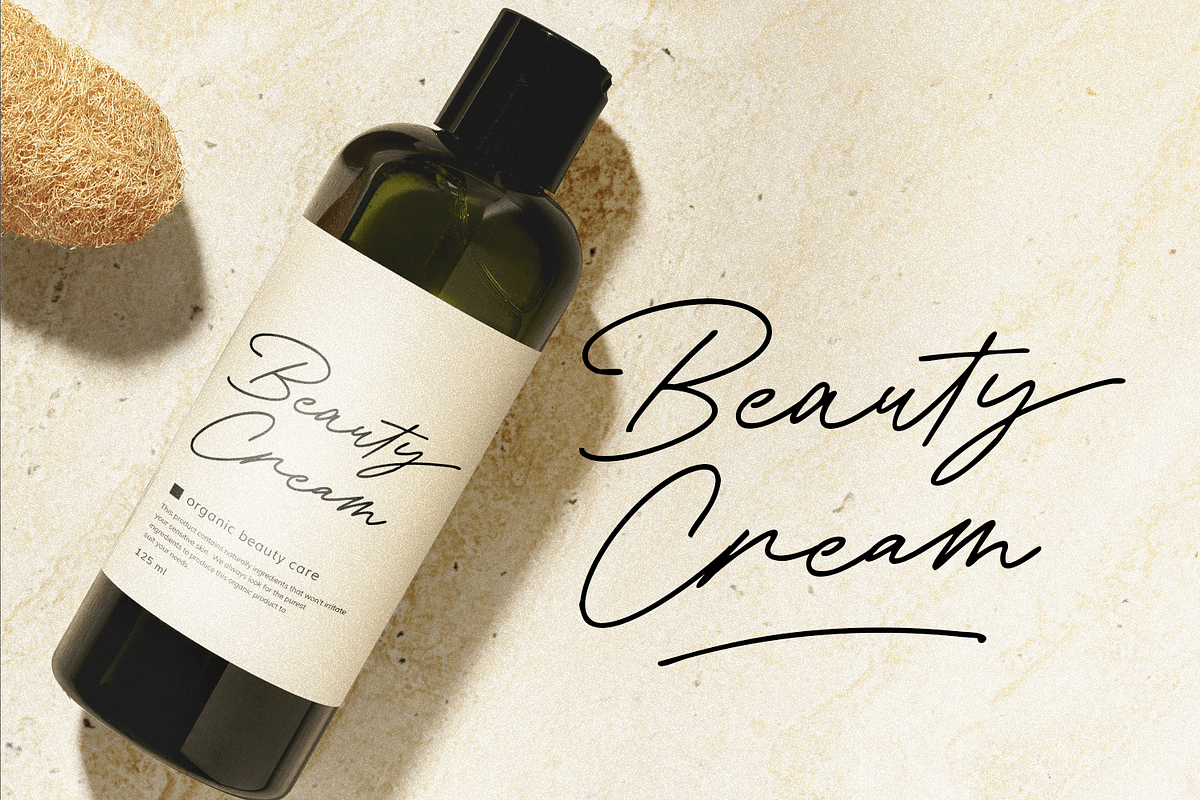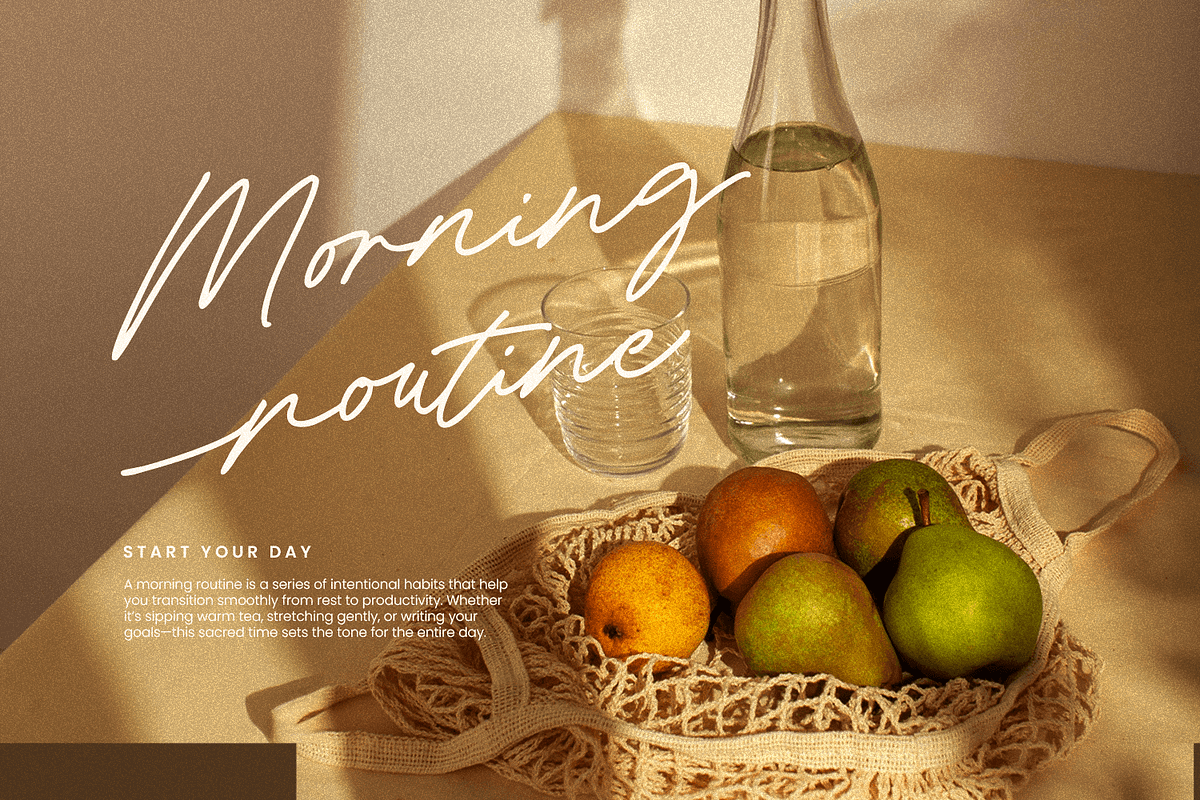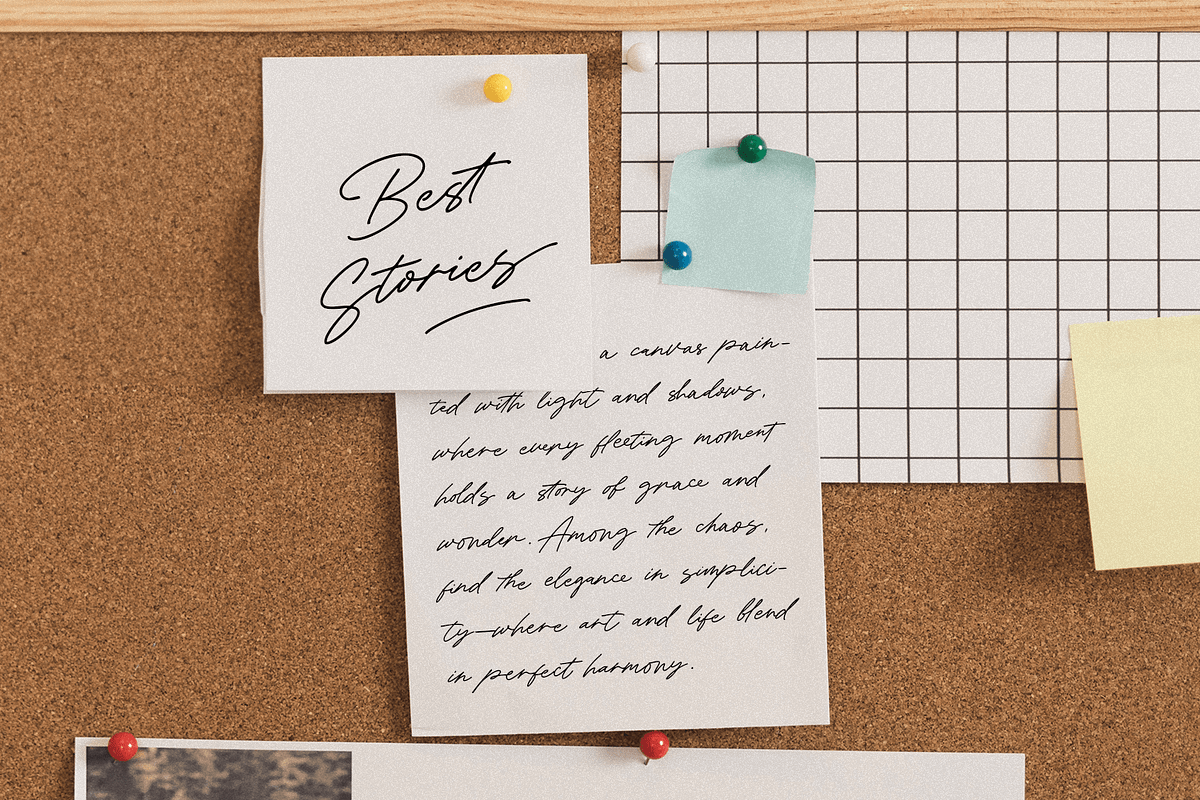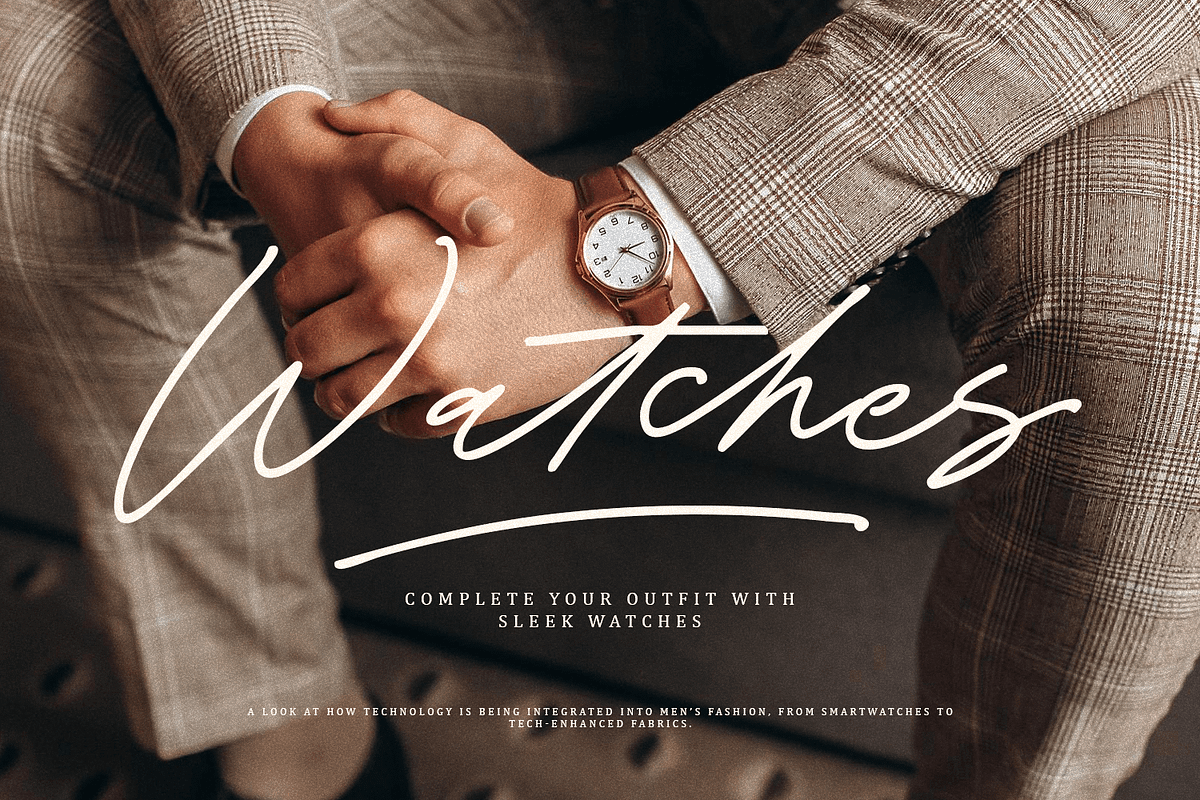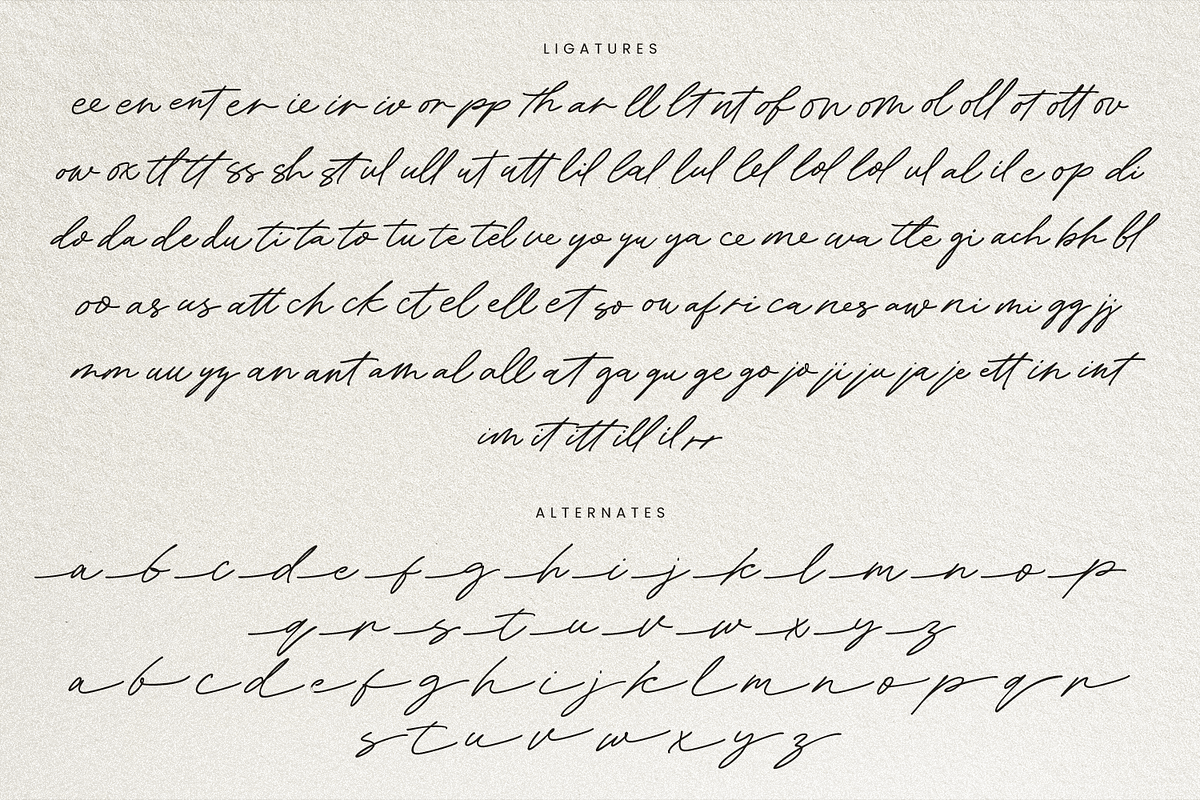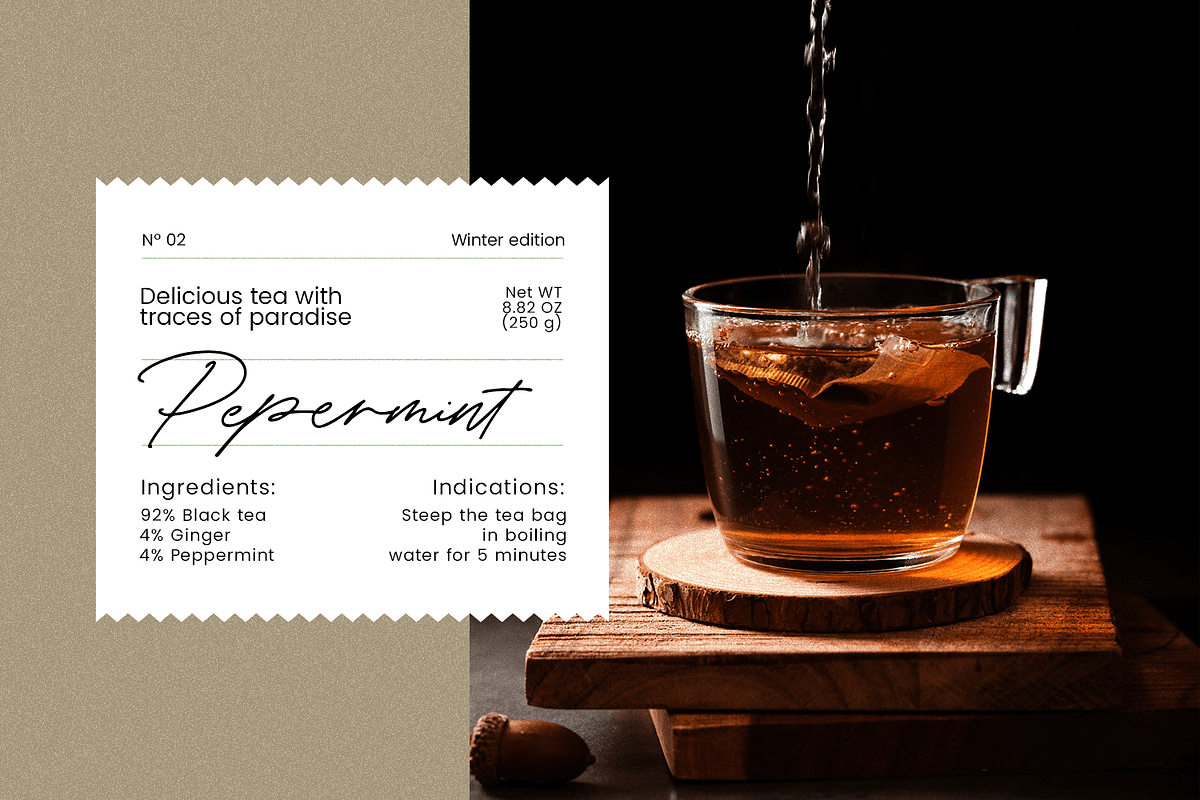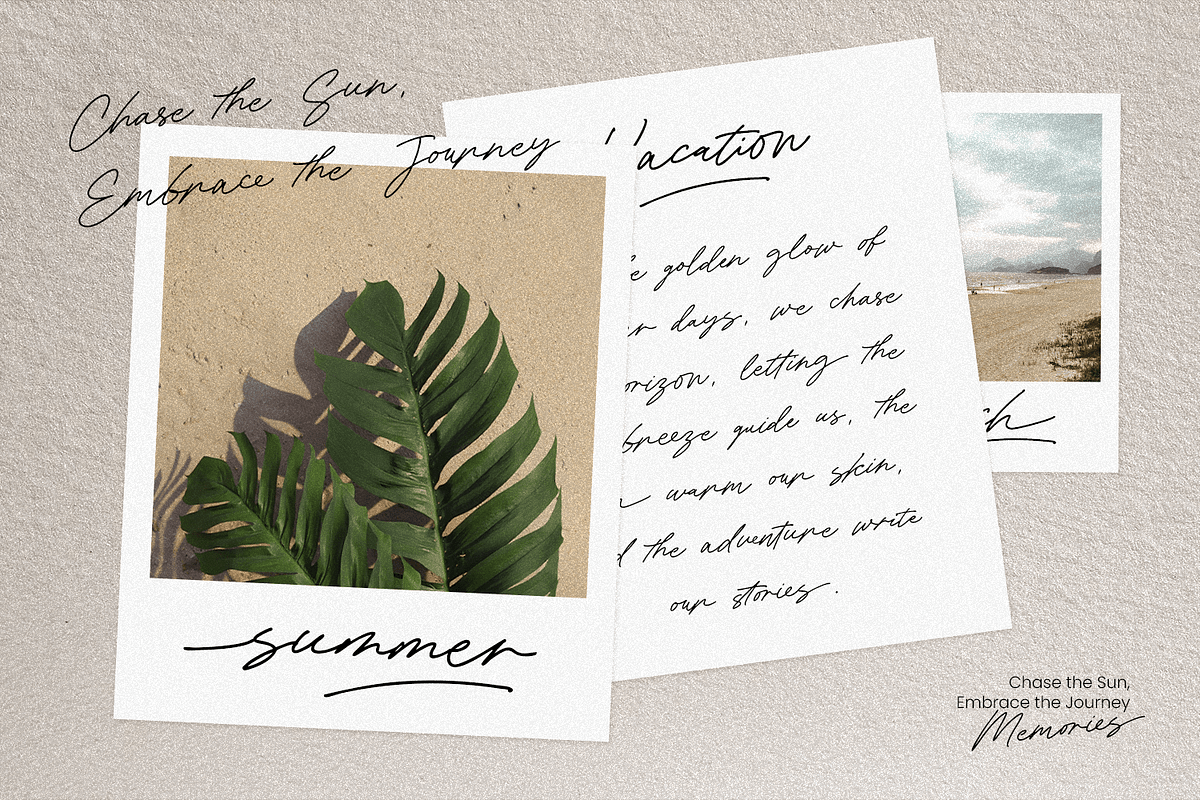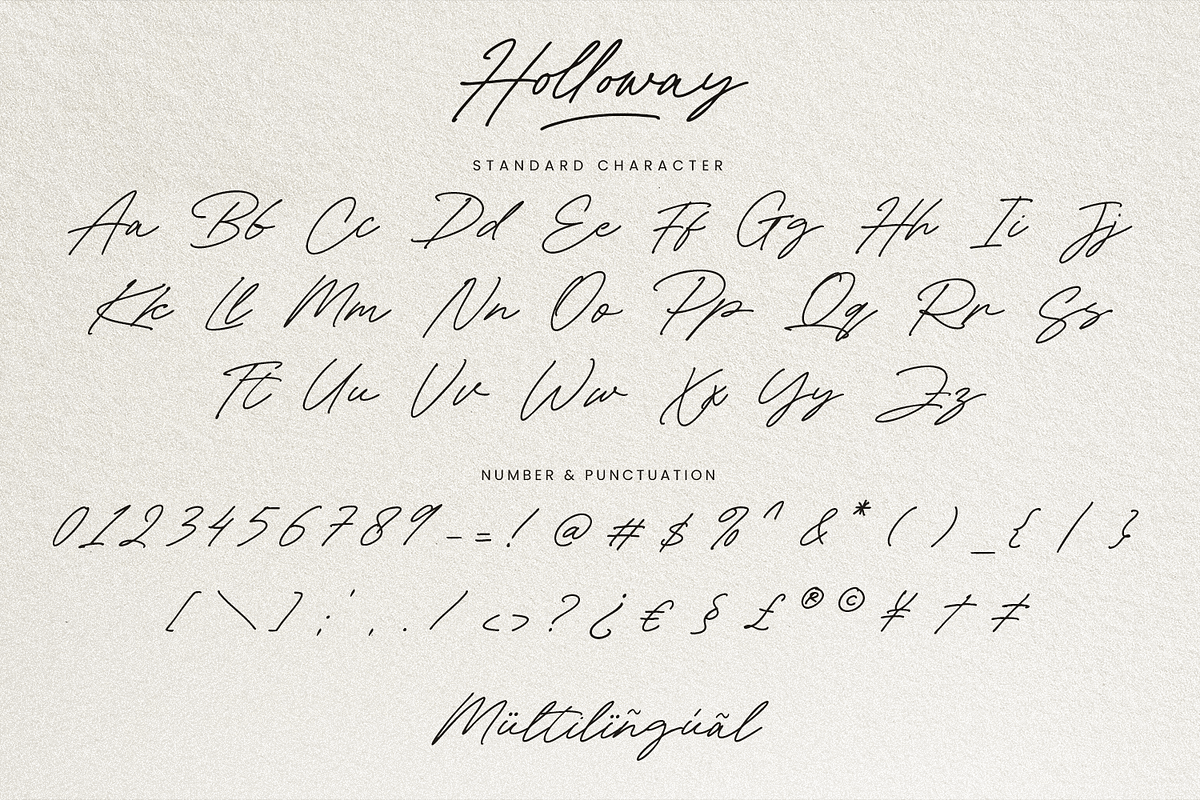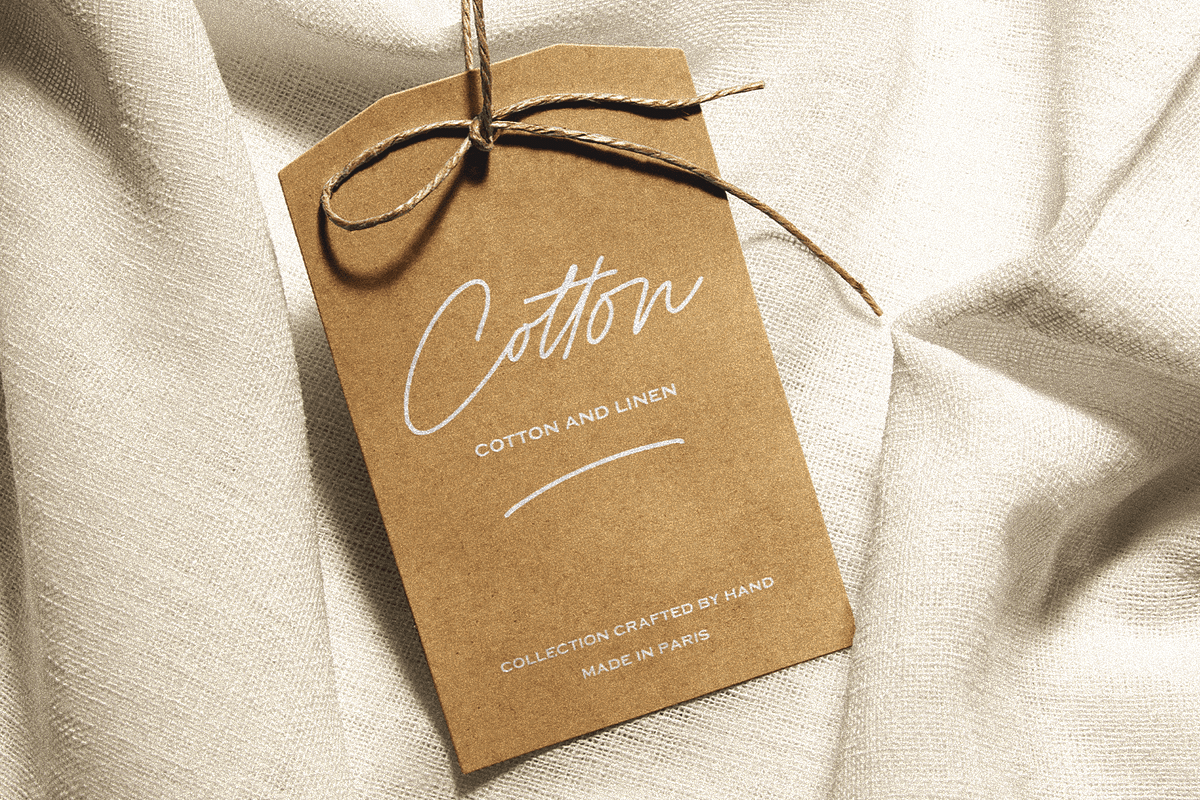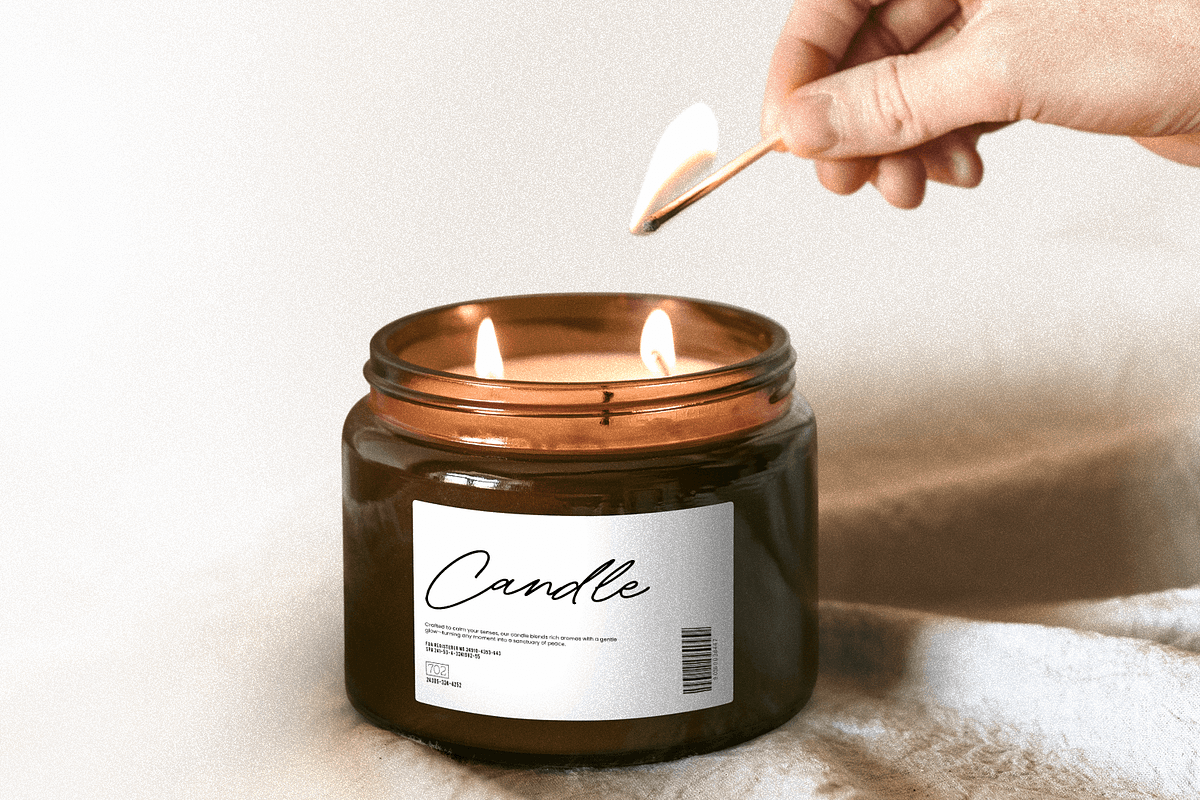
Holloway – Modern Handwritten Script
Introducing Holloway – Modern Handwritten Script Font
Holloway is a charming handwritten monoline script font, designed with a natural flow and elegant simplicity. Its smooth strokes and casual character make it perfect for branding, signature logos, wedding stationery, social media posts, and creative projects.
This font exudes effortless elegance, giving your designs a warm, personal touch with a modern feel.
Holloway is perfectly suited for branding, logotypes, wedding invitations, romantic quotes, labels, social media posts, advertisements, product packaging, product designs, label, photography, watermark, invitation, stationery and any projects seeking premium quality and luxury and aesthetic feel.
- Multilingual Support including Afrikaans, Albanian, Basque, Catalan, Danish, Dutch, English, Estonian, Faroese, Filipino, Finnish, French, Galician, German, Icelandic, Indonesian, Irish, Italian, Malay, Norwegian Bokmål, Portuguese, Spanish, Swahili, Swedish, Zulu